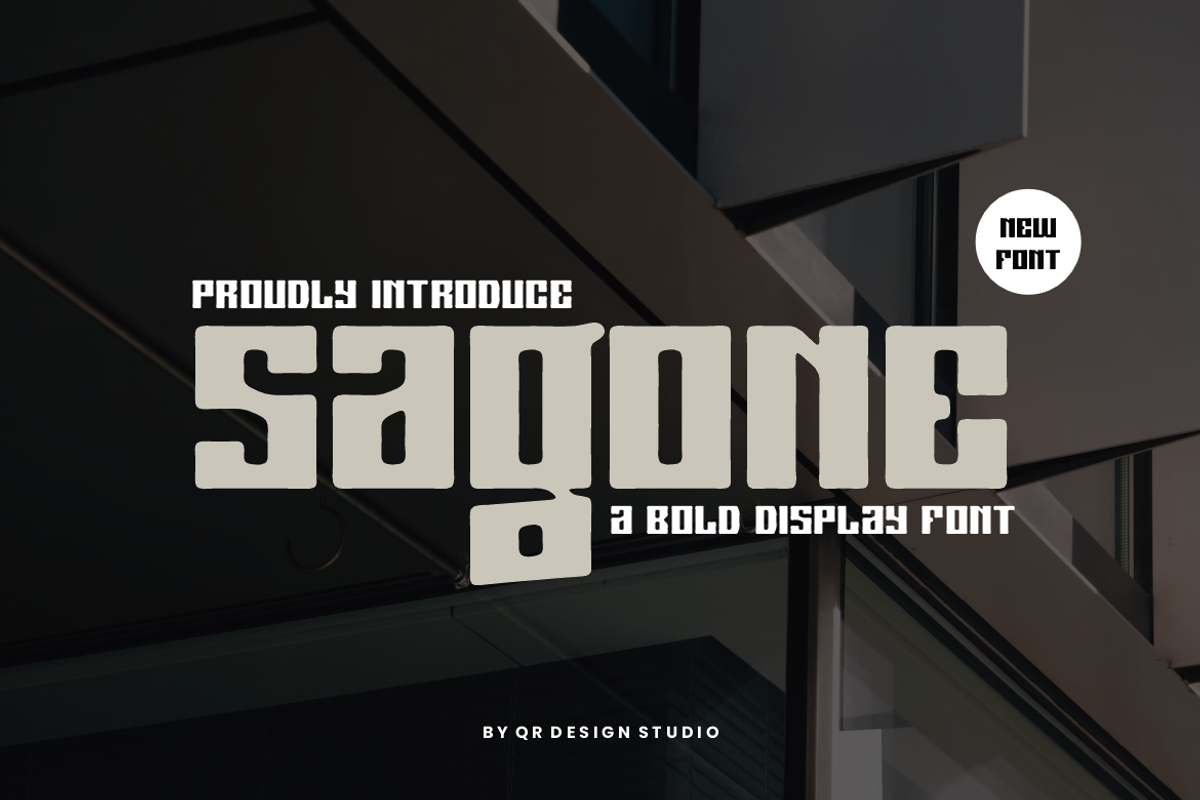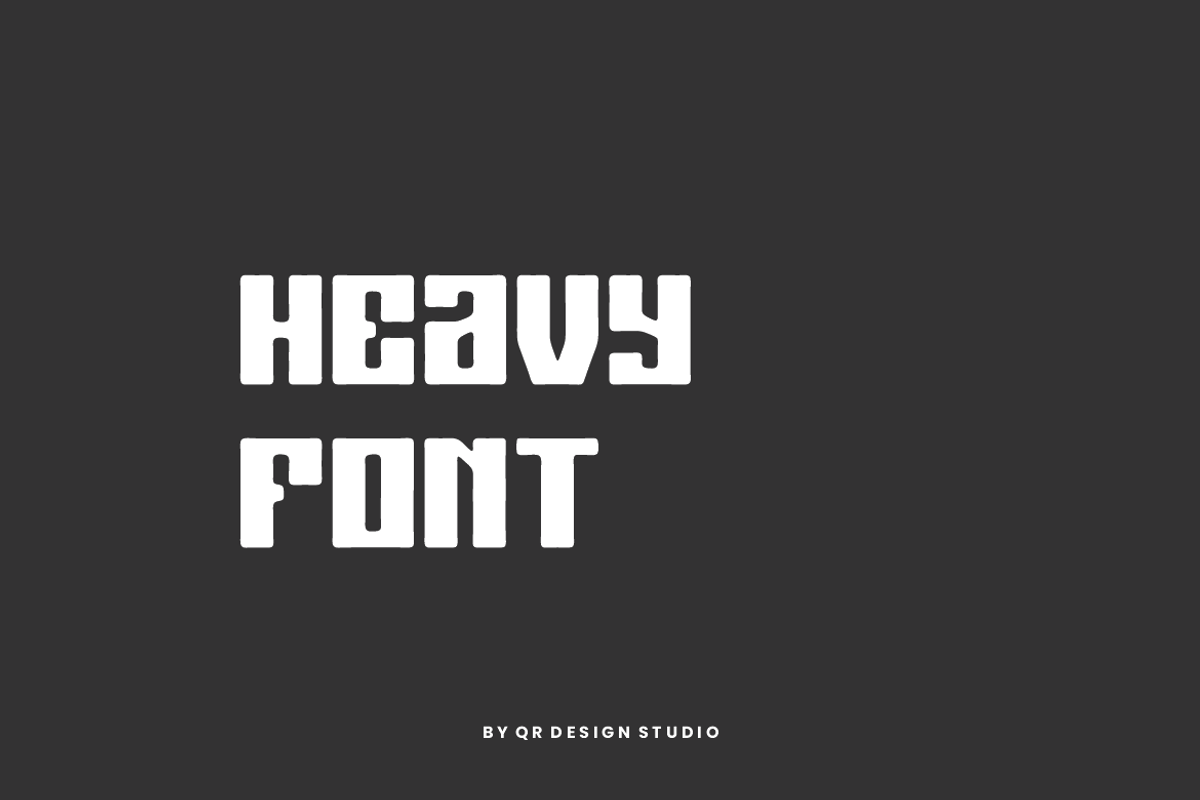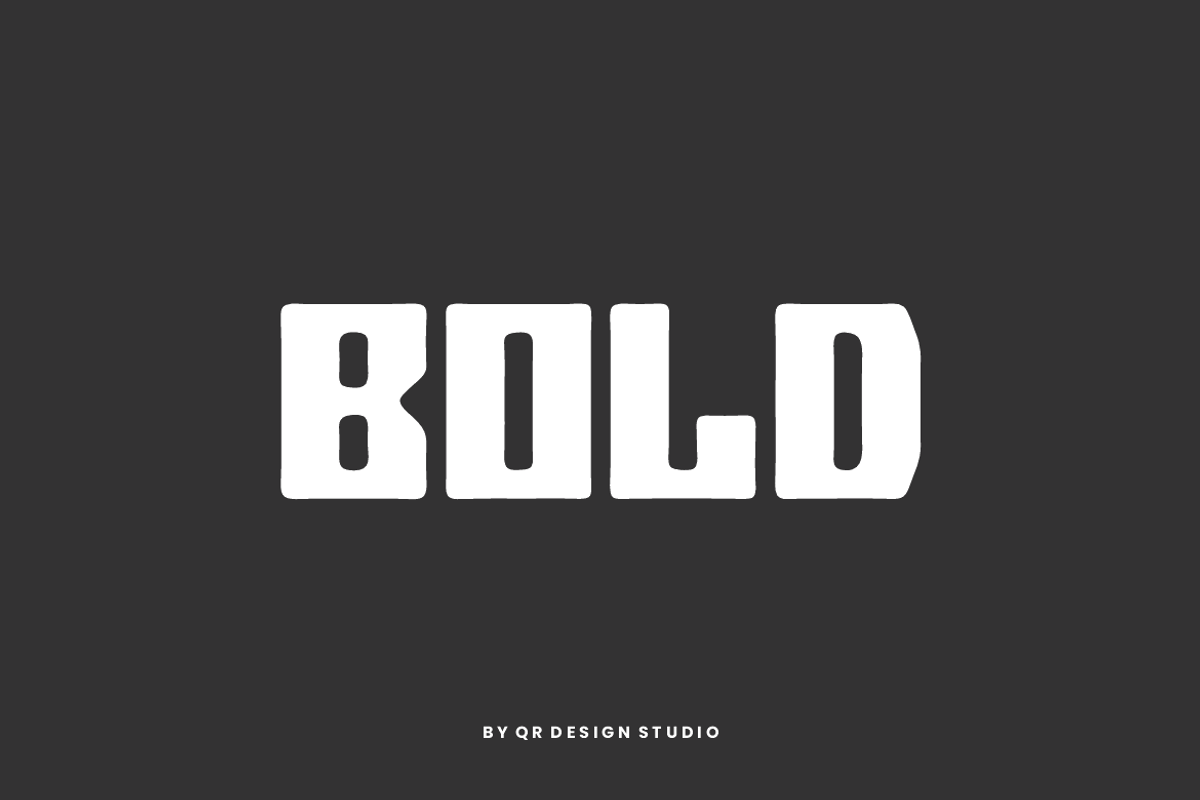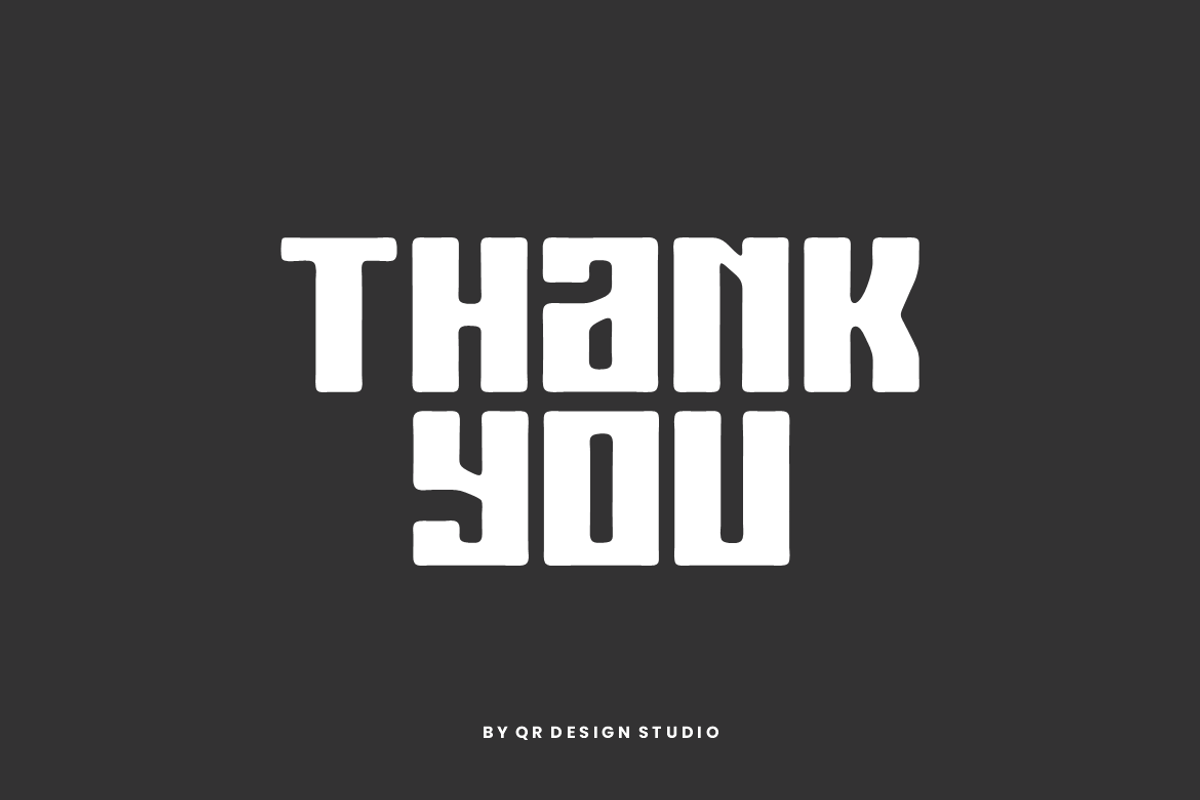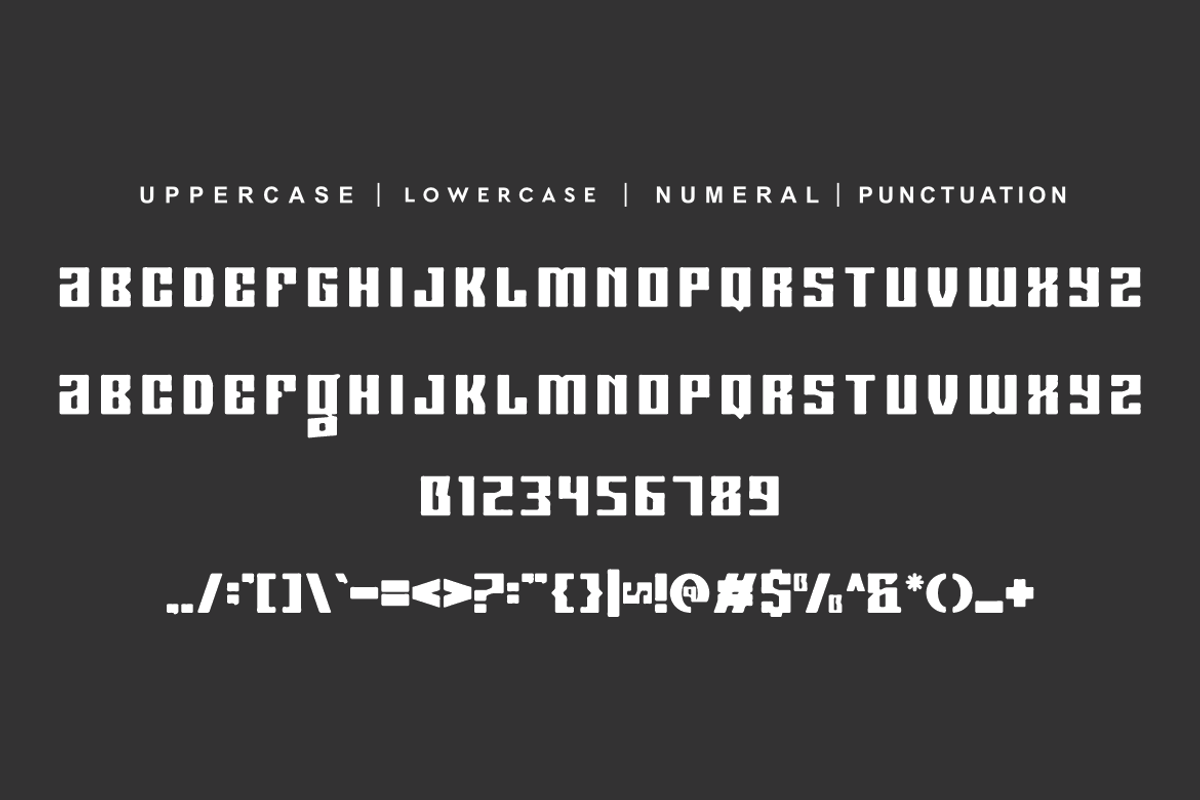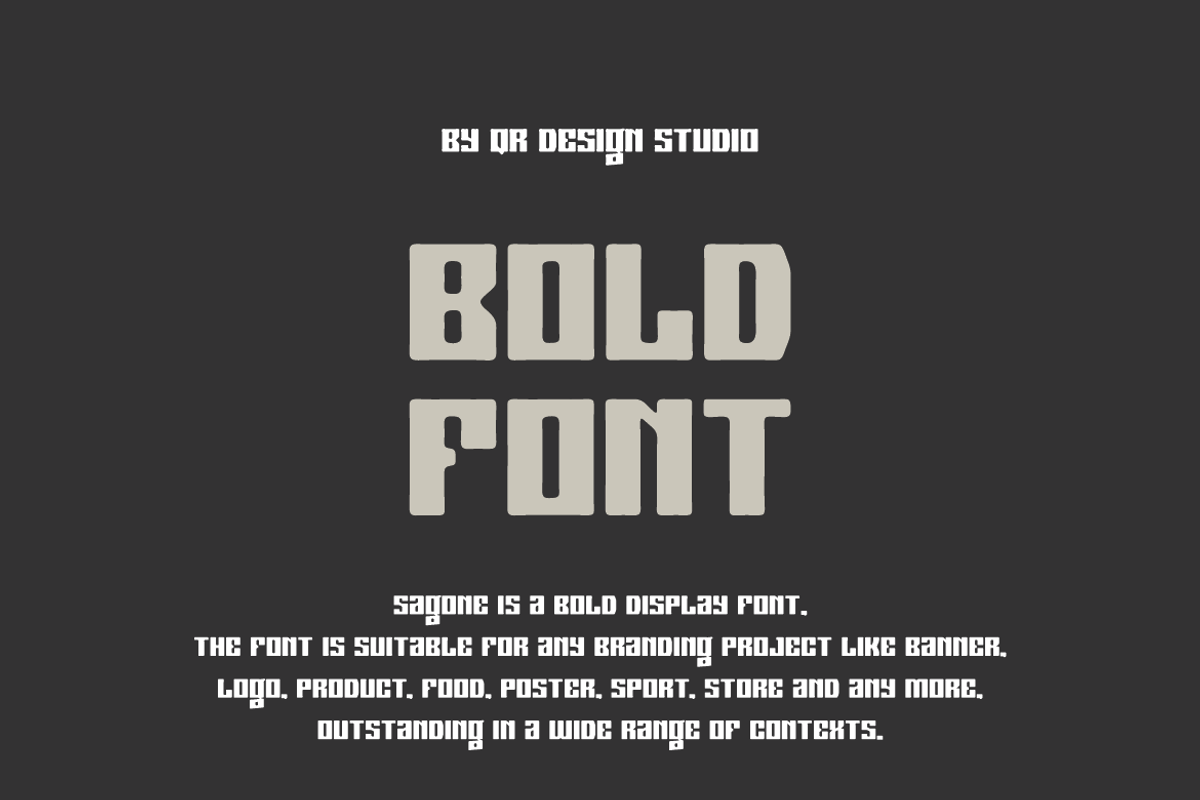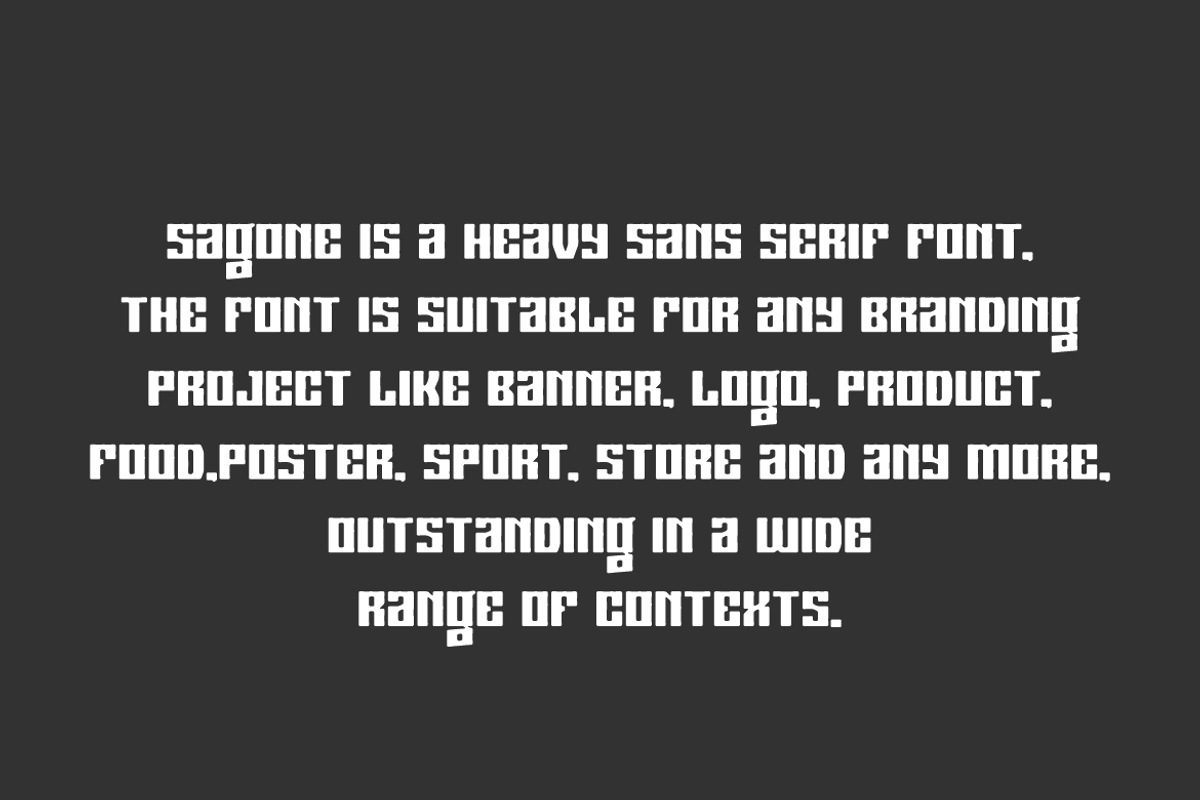
Sagone - Heavy & Thick Font
Sagone Font is a bold and authentic display font. The font is suitable for any branding project like poster, logo, sport, and many more. Outstanding in a wide range of contexts.